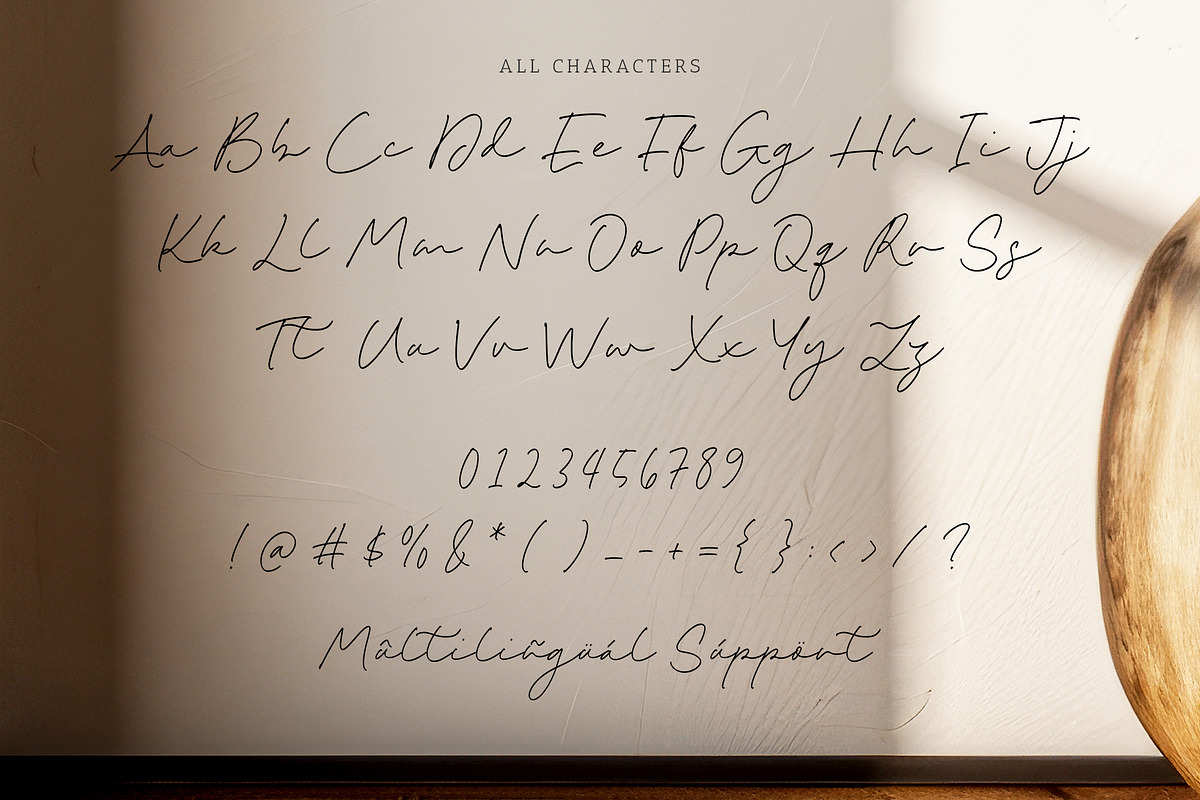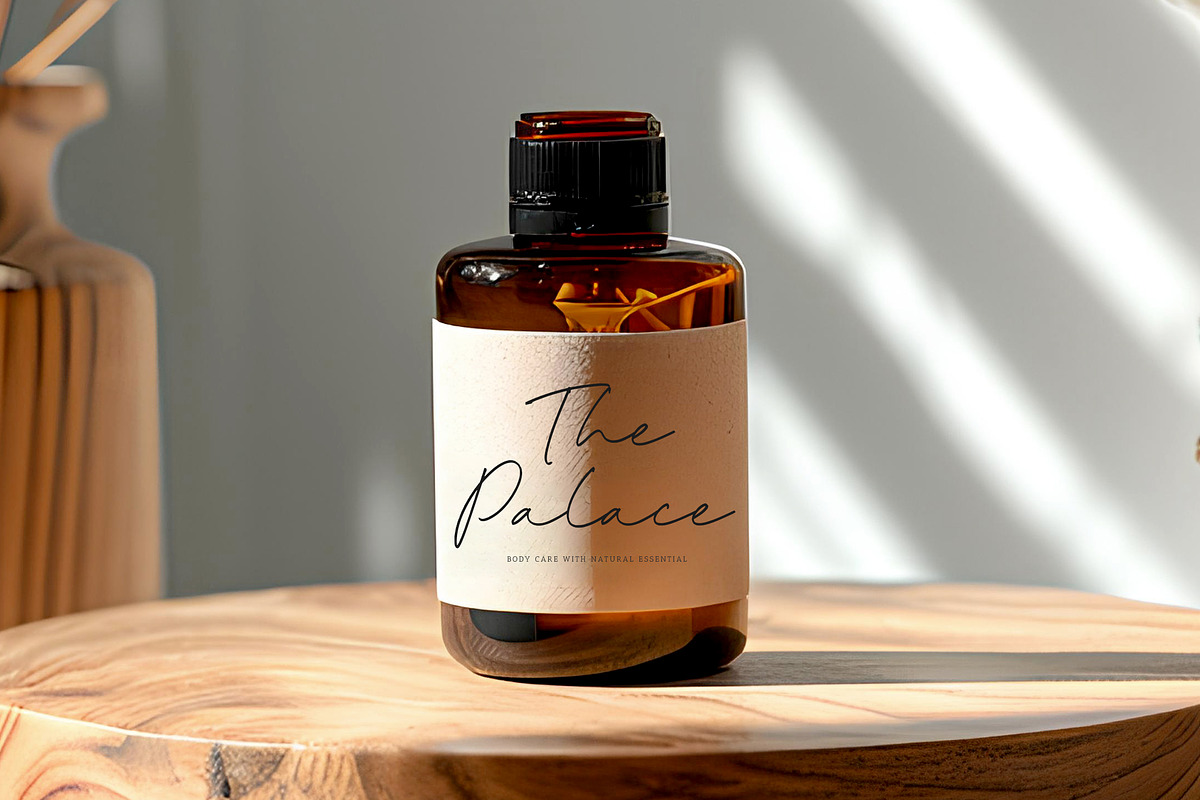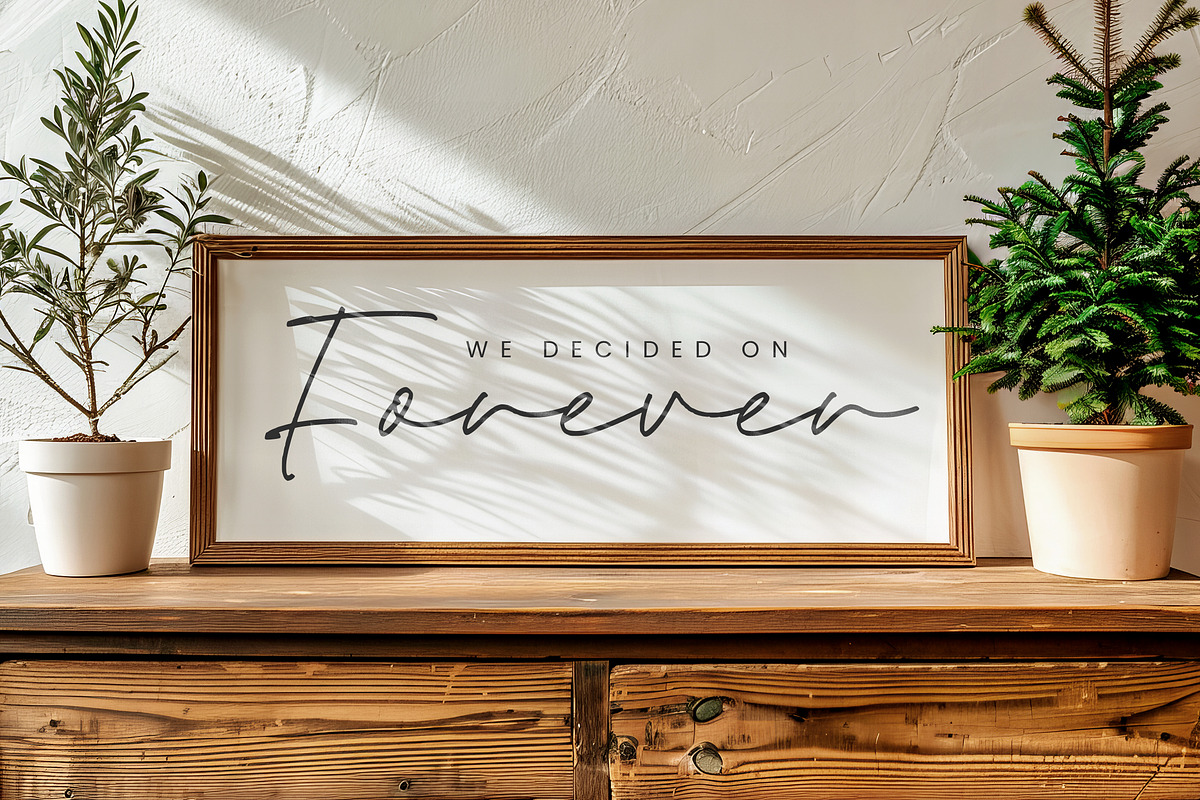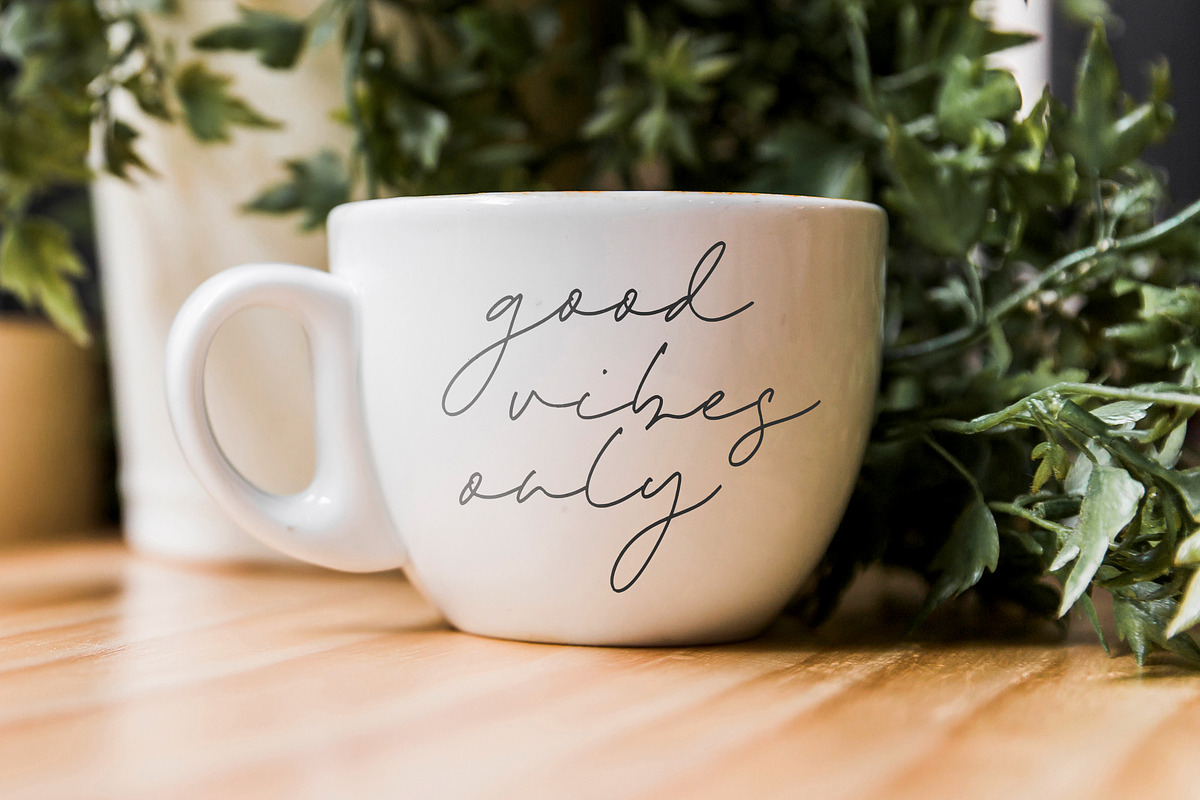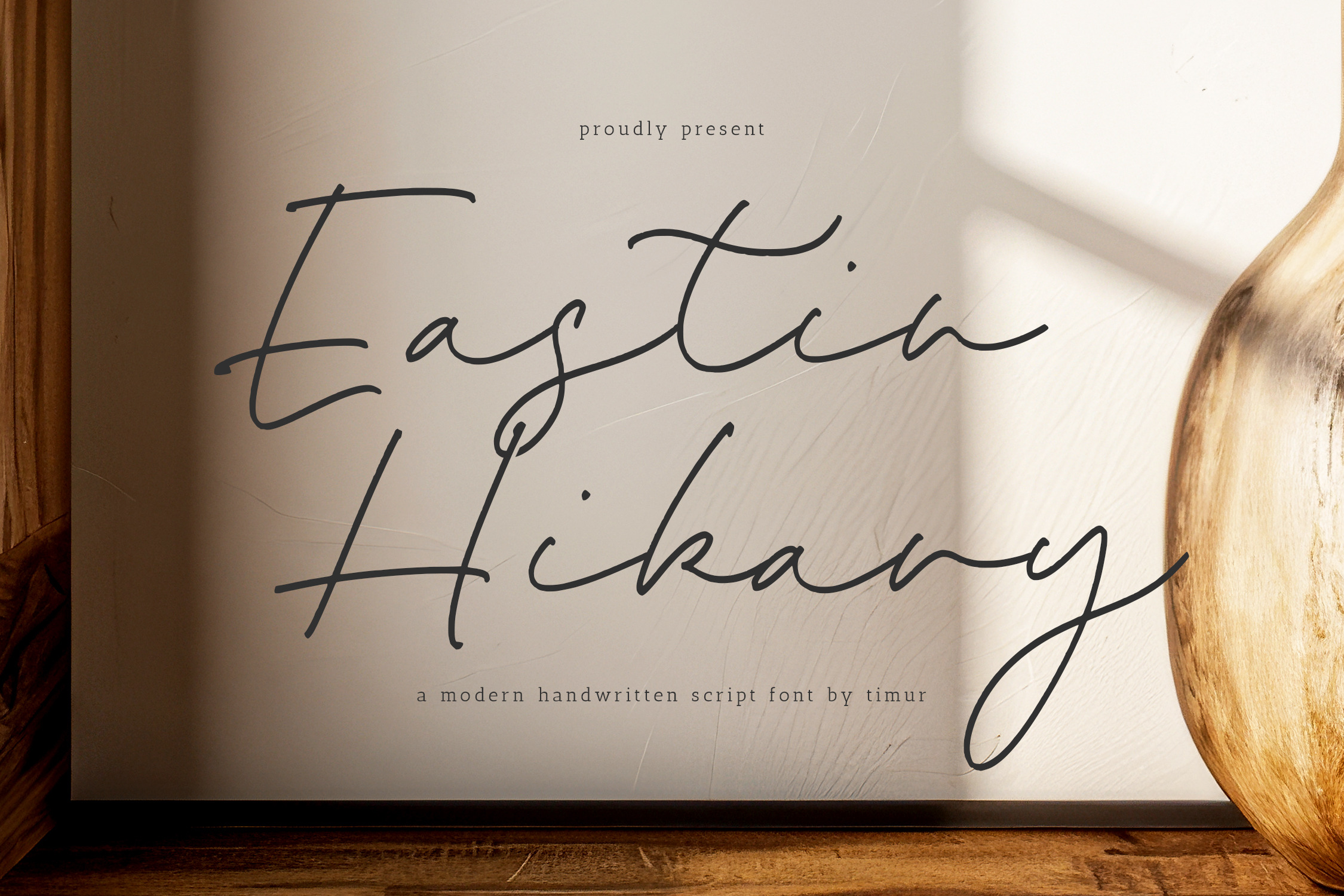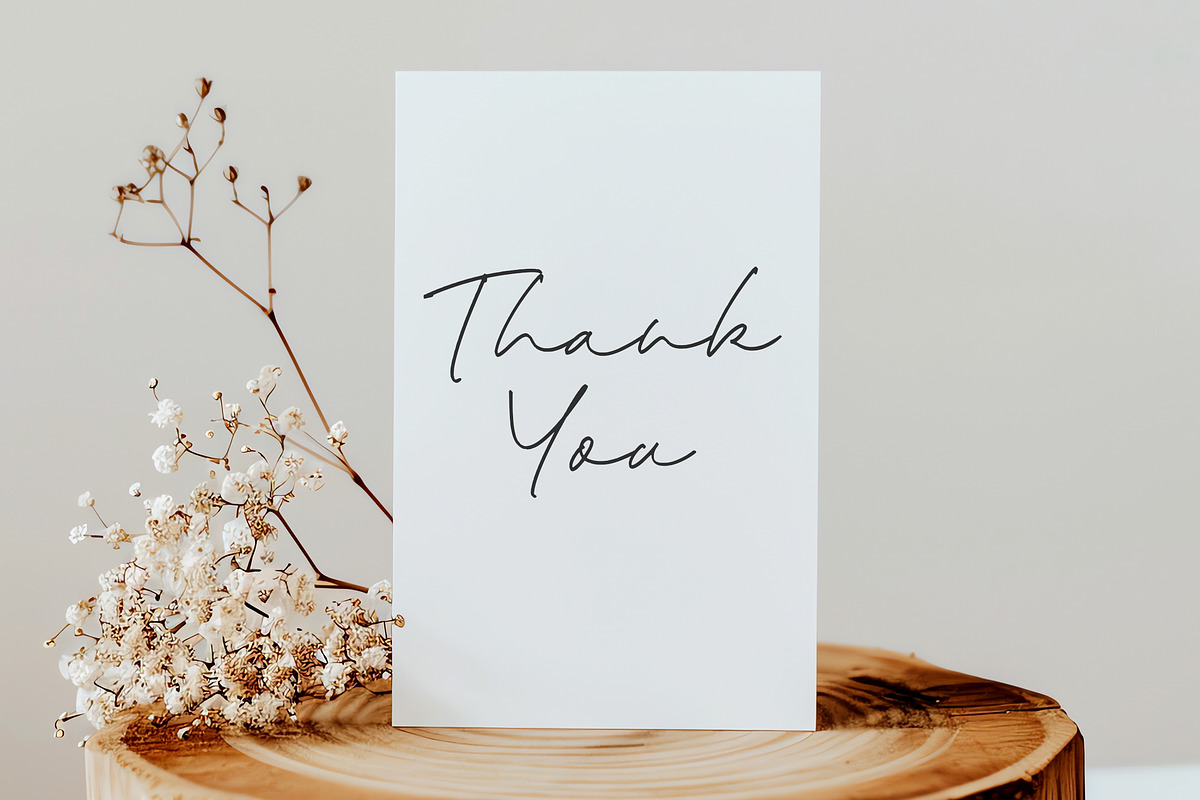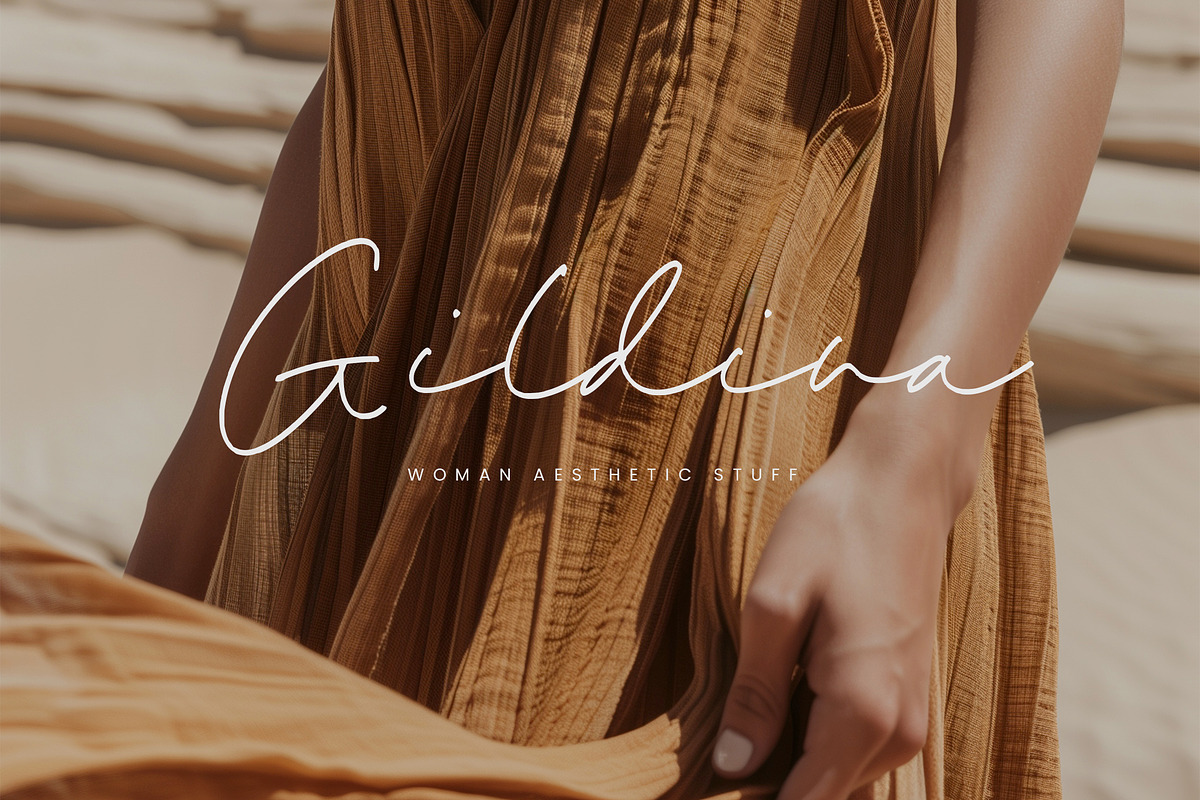
Eastin Hikary Font
Eastin Hikary is a Modern Handwritten Script Font
This font is a modern handwritten script font with a sleek monoline design. Its clean, flowing lines blend contemporary elegance with a personal touch, making it ideal for both professional and creative projects. With its balanced strokes and graceful curves, Eastin Hikary adds a refined, yet approachable, aesthetic to any text.
Eastin Hikary also supports multilingualism